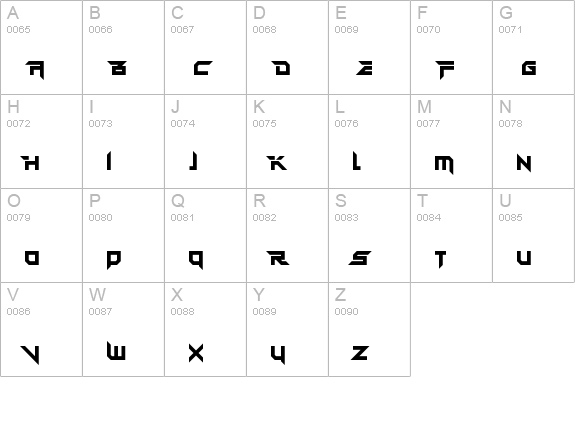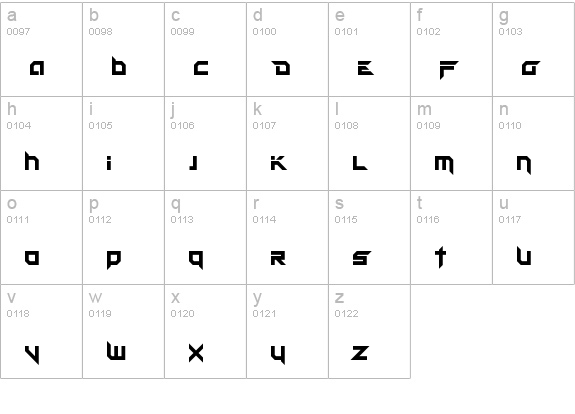
Fatality's Edge Regular Font Details
Fatality's Edge Regular is the standard, neutral variant in the Fatality's typeface family \xE2\x80\x94 well suited to general body text, paragraphs, and standard typographic work.
Fatality's Edge Regular font is a sleek and modern typeface that exudes confidence and sophistication. Its sharp edges and bold strokes give it a strong and commanding presence, making it a perfect choice for headlines, logos, and other design projects where you want to make a statement. This font's versatility allows it to be used in a variety of settings, from elegant invitations to edgy posters. Its clean lines and distinct letterforms ensure readability while still maintaining a distinct style that sets it apart from other fonts. Best of all, Fatality's Edge Regular font is available for free download at FontsMarket.com. Whether you're a designer looking to add a unique touch to your projects or a business owner in need of a striking logo, this font is sure to impress. Download it today and elevate your designs with the bold and modern look of Fatality's Edge Regular font.